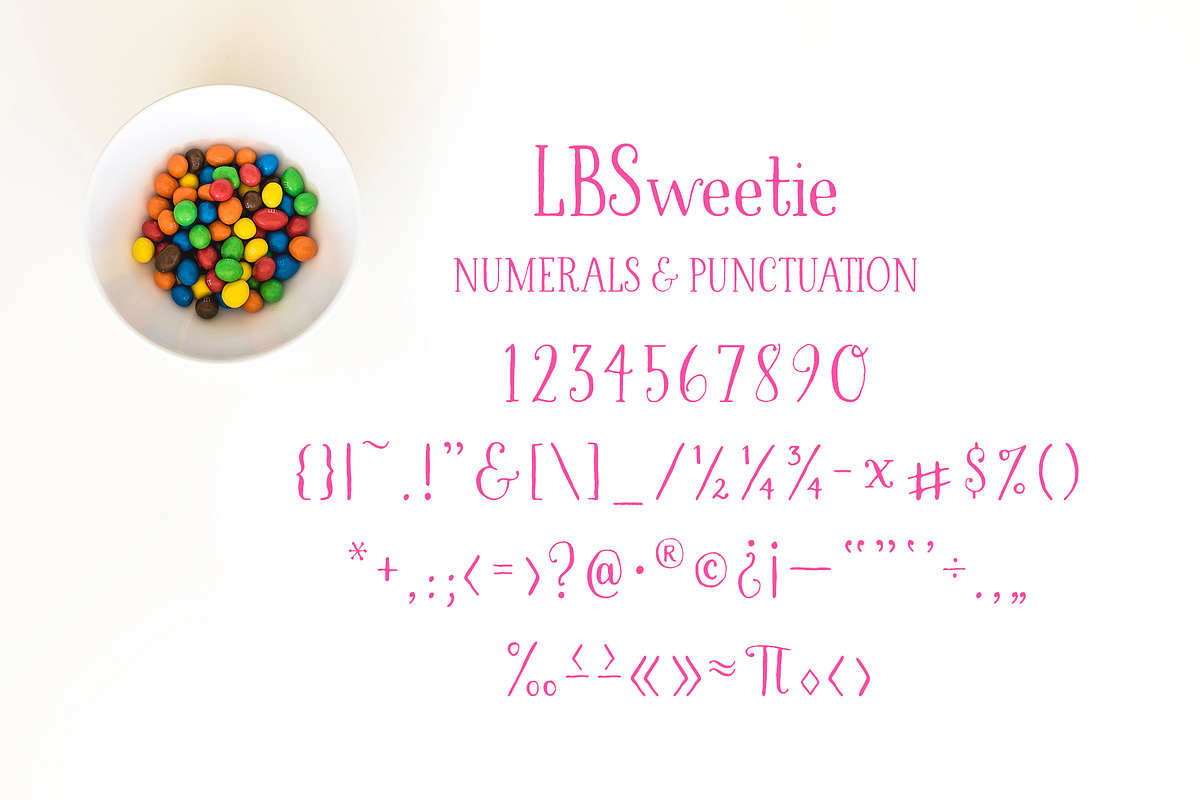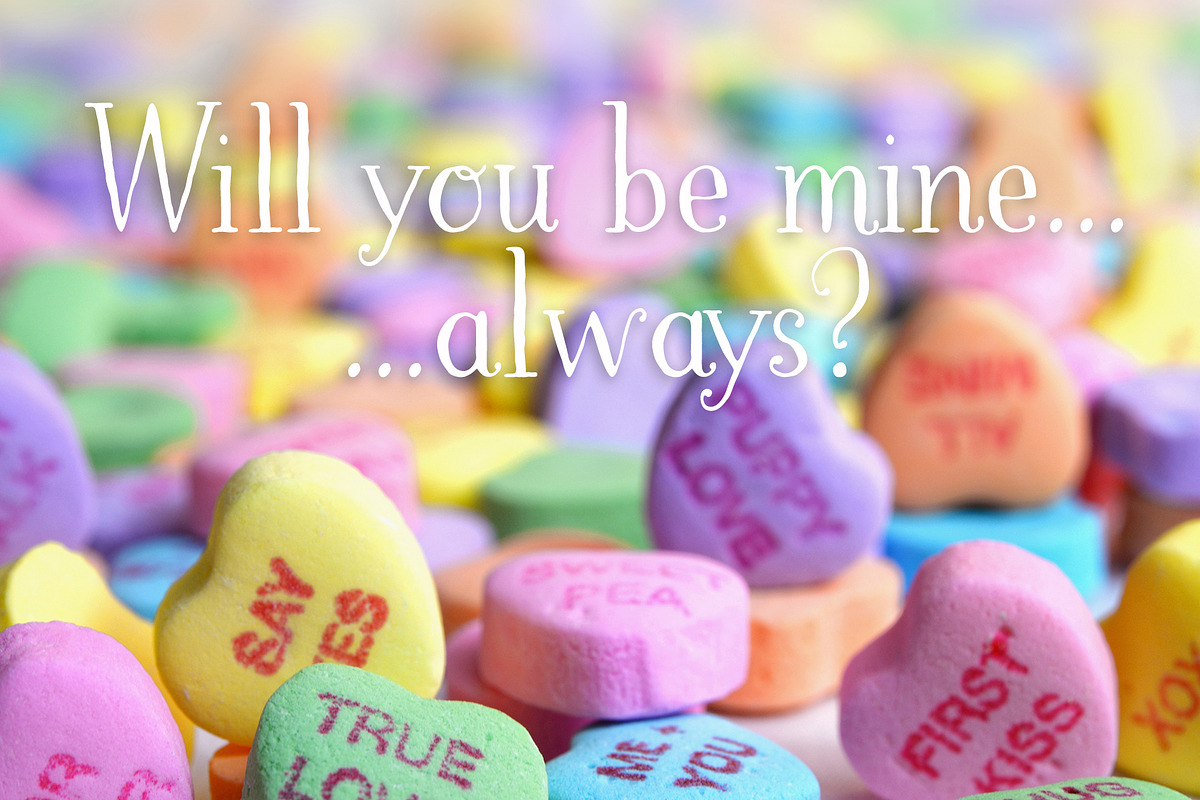
LBSweetie Handwritten font
LBSweetie Handwritten font by Laura Bolter Design is a font selected for branding, posters, packaging, typography.
- It includes upper and lower case, numerals, punctuation, accents and more.
- This an OpenType font that has some stylistic alternates / contextual alternates / catchwords and/or ornaments.
Why LBSweetie Handwritten font is worth a look
LBSweetie Handwritten font by Laura Bolter Design fits naturally into Branding, posters, packaging, typography.